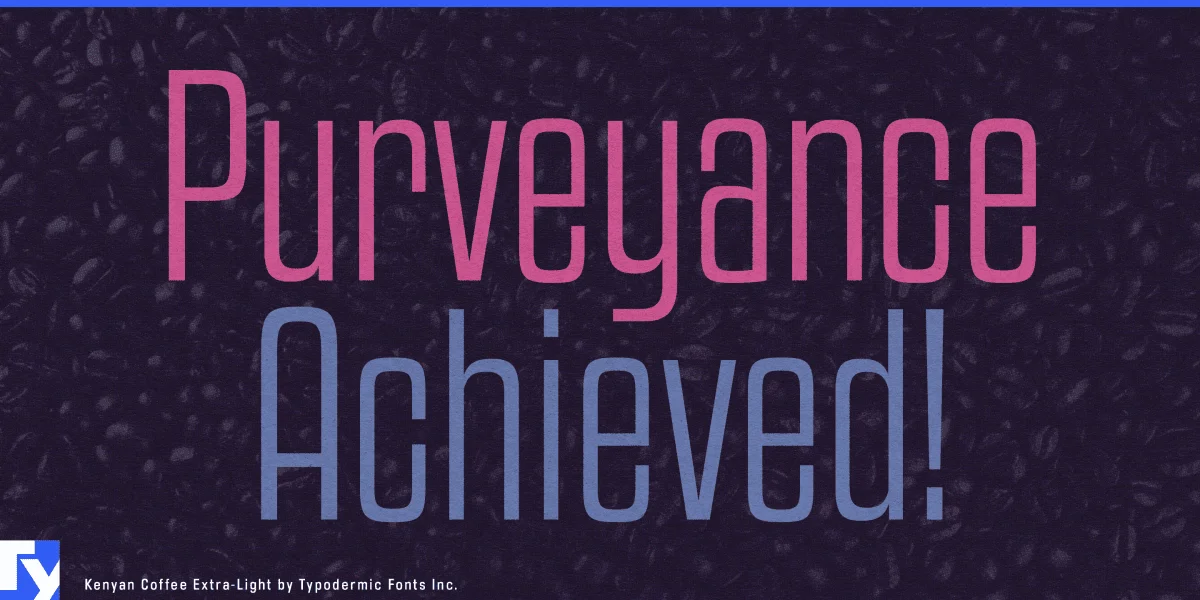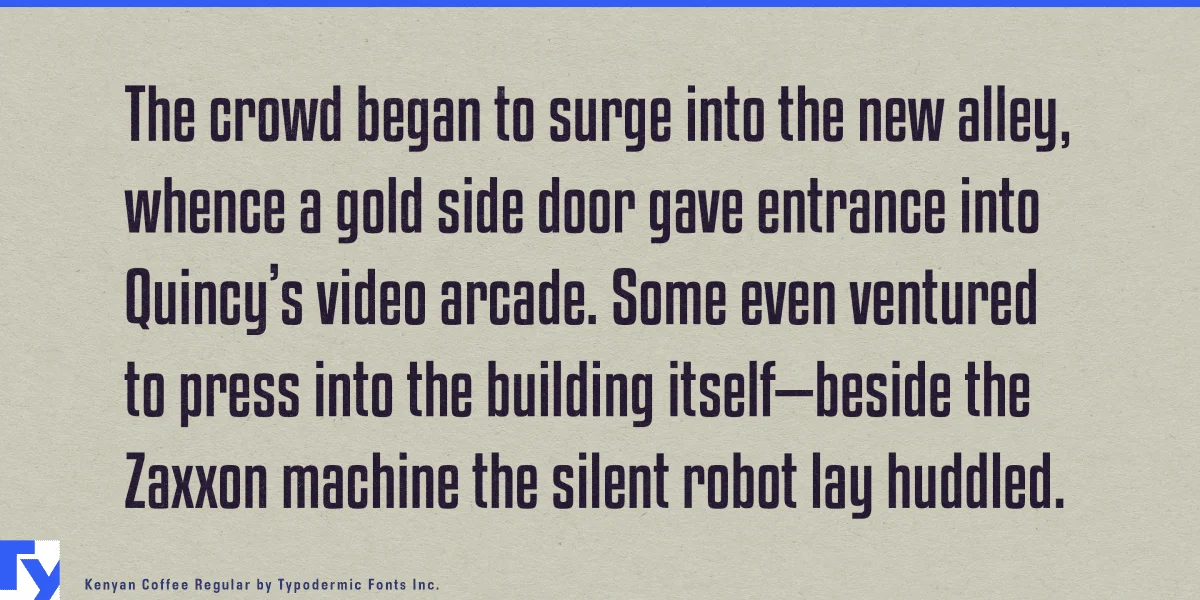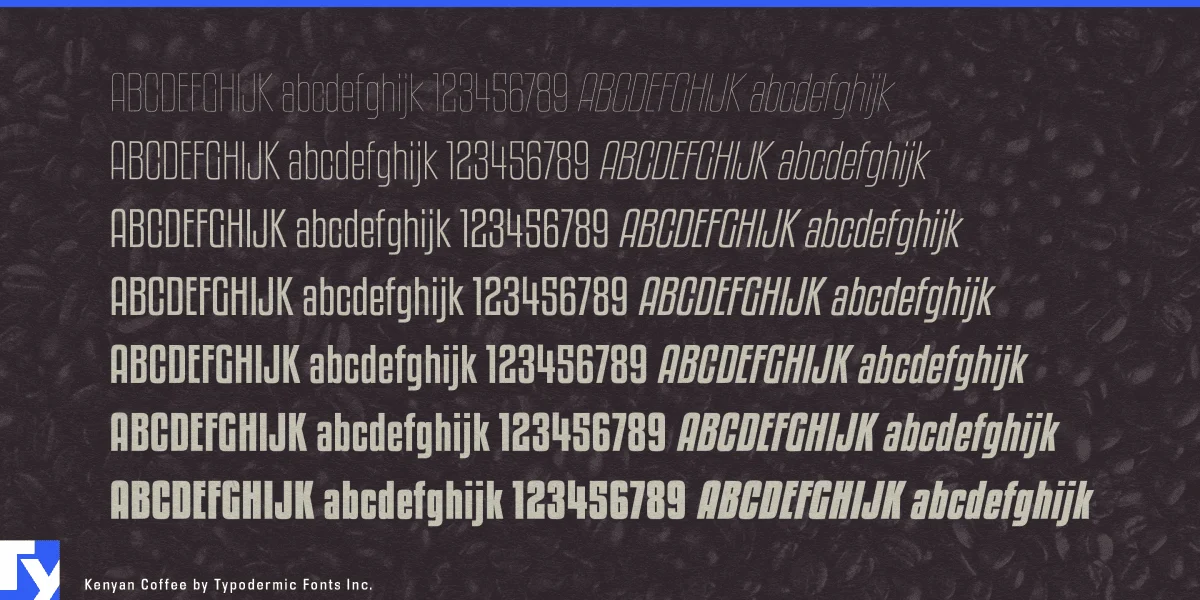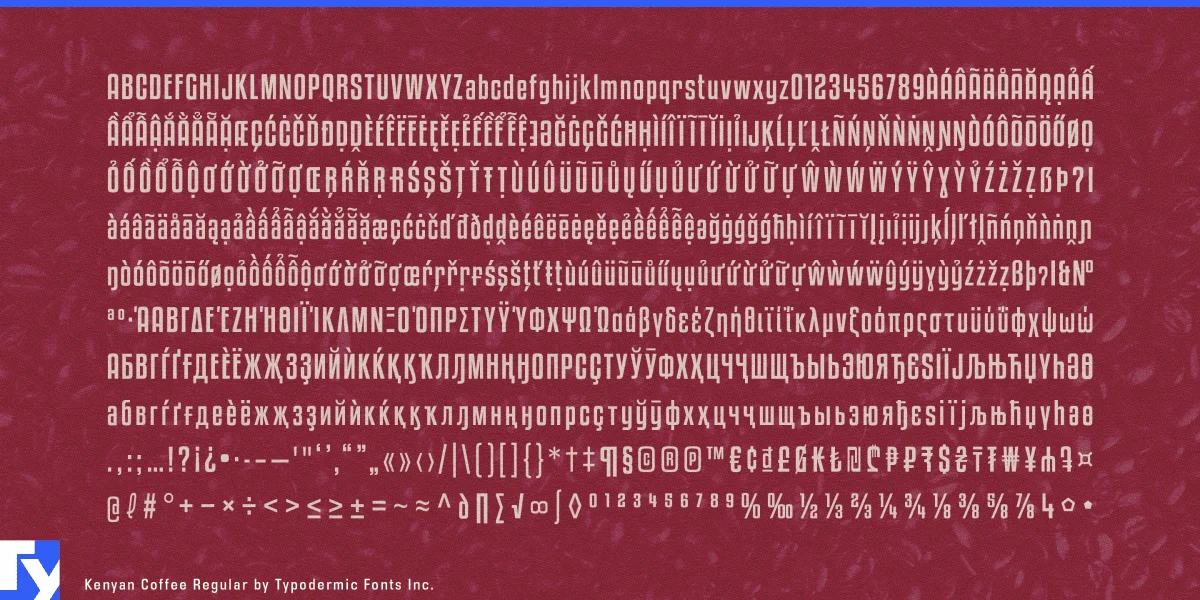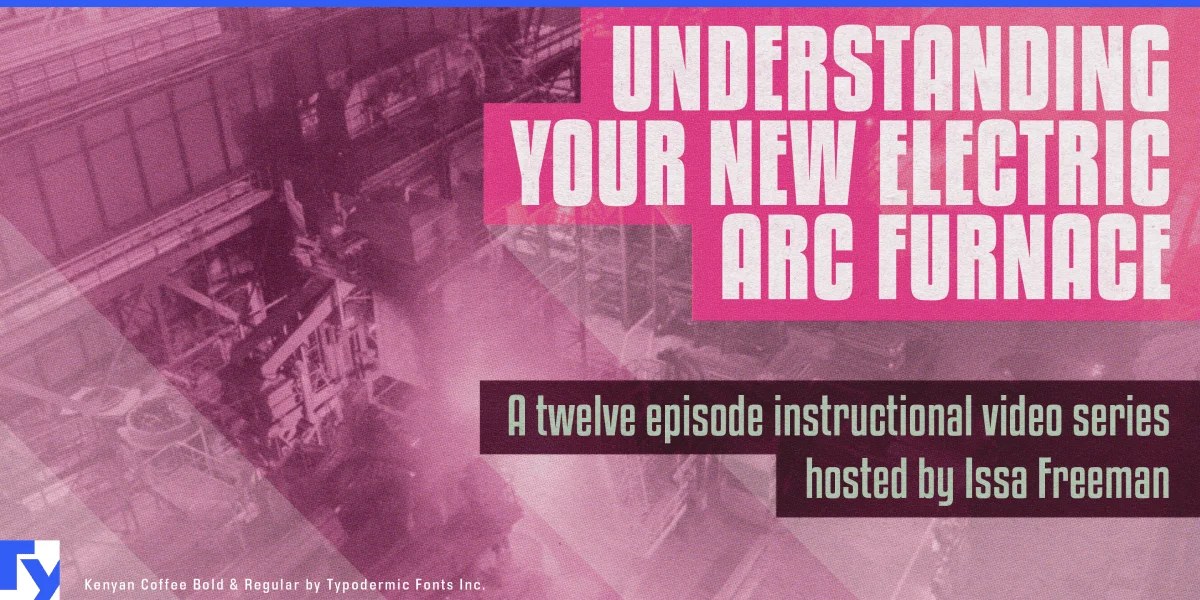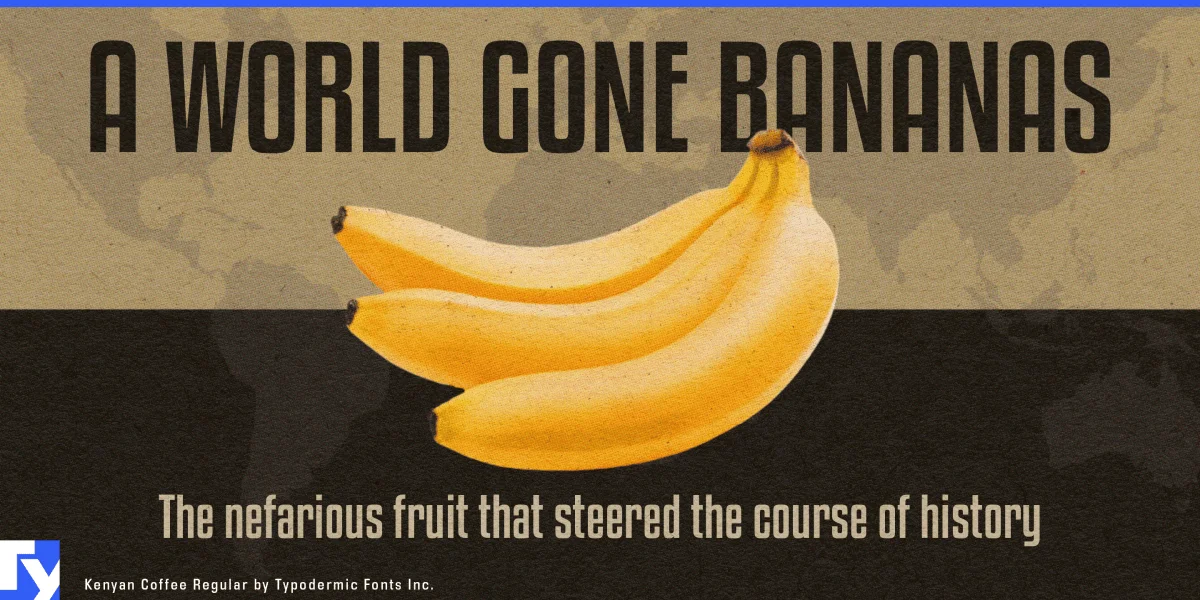
Kenyan Coffee emerges as a bold typographic statement, bridging the gap between mid-20th century aesthetics and contemporary design sensibilities. This sleek, compact typeface channels the spirit of 1960s headline fonts, infusing modern layouts with a potent dose of retro-industrial chic.
At its core, Kenyan Coffee embodies the confident, forward-thinking ethos of its inspirational era. The typeface’s sharp lines and innovative design speak to a time of rapid technological advancement and cultural revolution, making it an ideal choice for projects that aim to capture that sense of optimism and progress. Yet, Kenyan Coffee is far from a mere historical pastiche—it reinterprets these classic forms for the modern eye, resulting in a typeface that feels both familiar and refreshingly current. The versatility of Kenyan Coffee is one of its standout features. With seven weights and accompanying italics, it offers designers a comprehensive toolkit for expression. From whisper-thin headlines that exude elegance to bold statements that command attention, this typeface adapts seamlessly to a variety of design contexts. This range allows Kenyan Coffee to navigate effortlessly between sleek, minimalist logos and exuberant, retro-inspired posters.
Kenyan Coffee Stencil takes the typeface’s industrial aesthetic to new heights. This variation introduces a rugged, utilitarian character that evokes factory floors and shipping crates, perfect for designs that demand a raw, uncompromising presence. The stencil version opens up new creative avenues, allowing designers to play with texture and negative space in innovative ways. What truly sets Kenyan Coffee apart is its remarkable linguistic versatility. Supporting an extensive array of writing systems—including Latin-based European languages, Vietnamese, Greek, and most Cyrillic-based scripts—this typeface is a true global communicator. From the bustling streets of Hanoi to the academic halls of Athens, from the tech hubs of Silicon Valley to the creative agencies of Moscow, Kenyan Coffee speaks with a consistent voice, ensuring that your message retains its impact across cultures and continents.
Embrace Kenyan Coffee and watch as it transforms your designs into powerful visual statements. From branding projects that need to convey both heritage and innovation to editorial layouts that demand a perfect balance of readability and style, Kenyan Coffee stands ready to articulate your vision with clarity and character. With Kenyan Coffee, your designs don’t just communicate—they resonate with the bold, optimistic spirit of an era that continues to captivate and inspire.